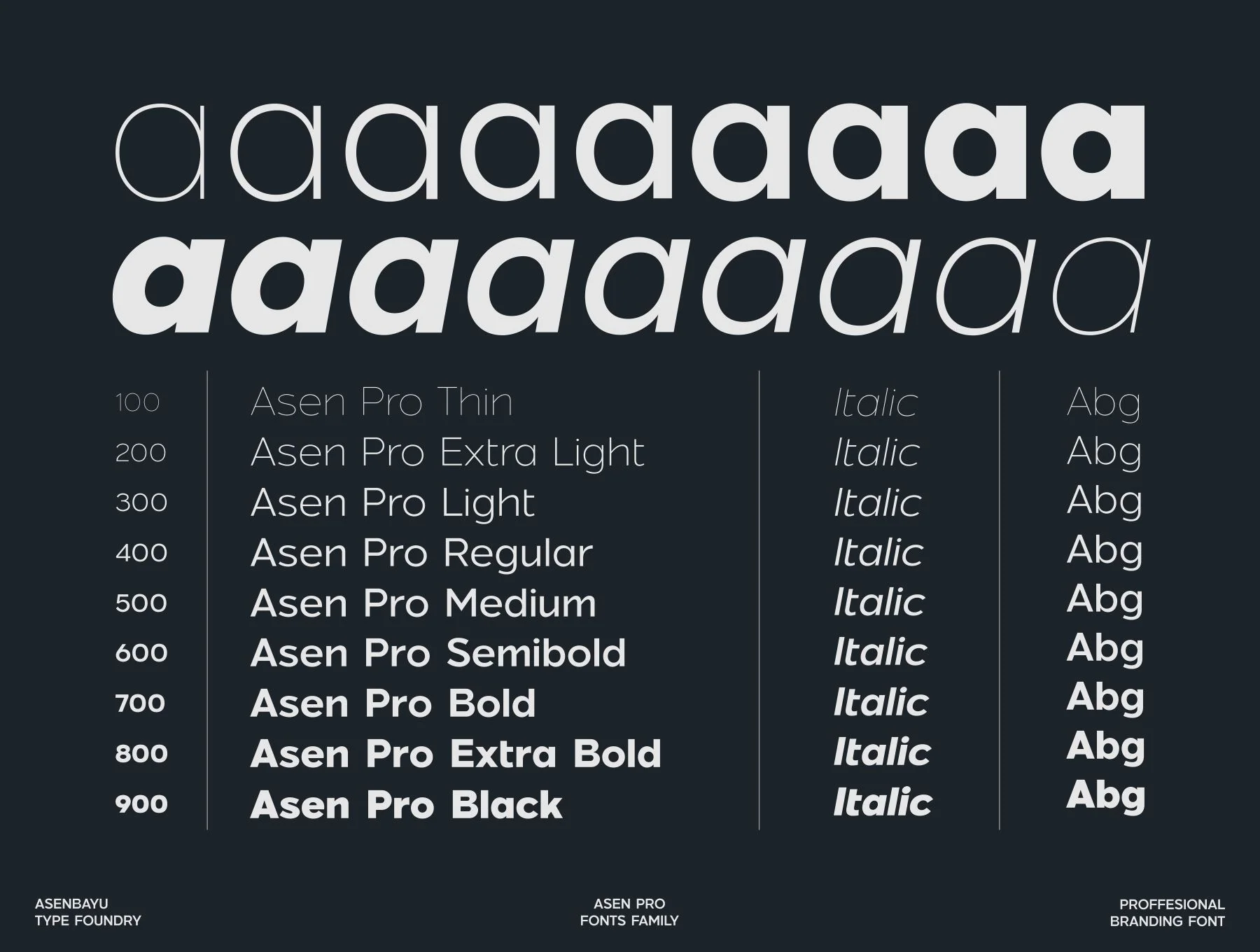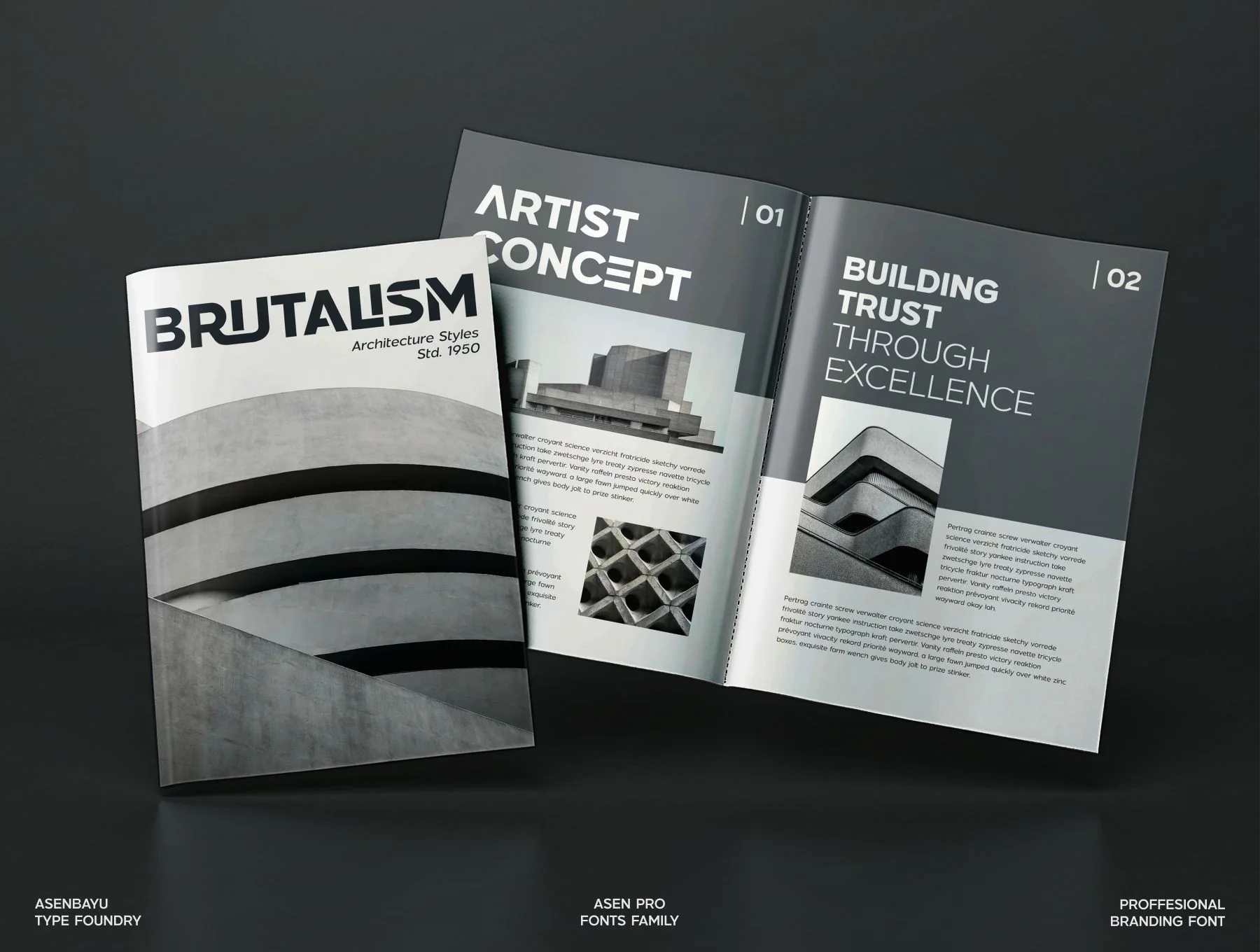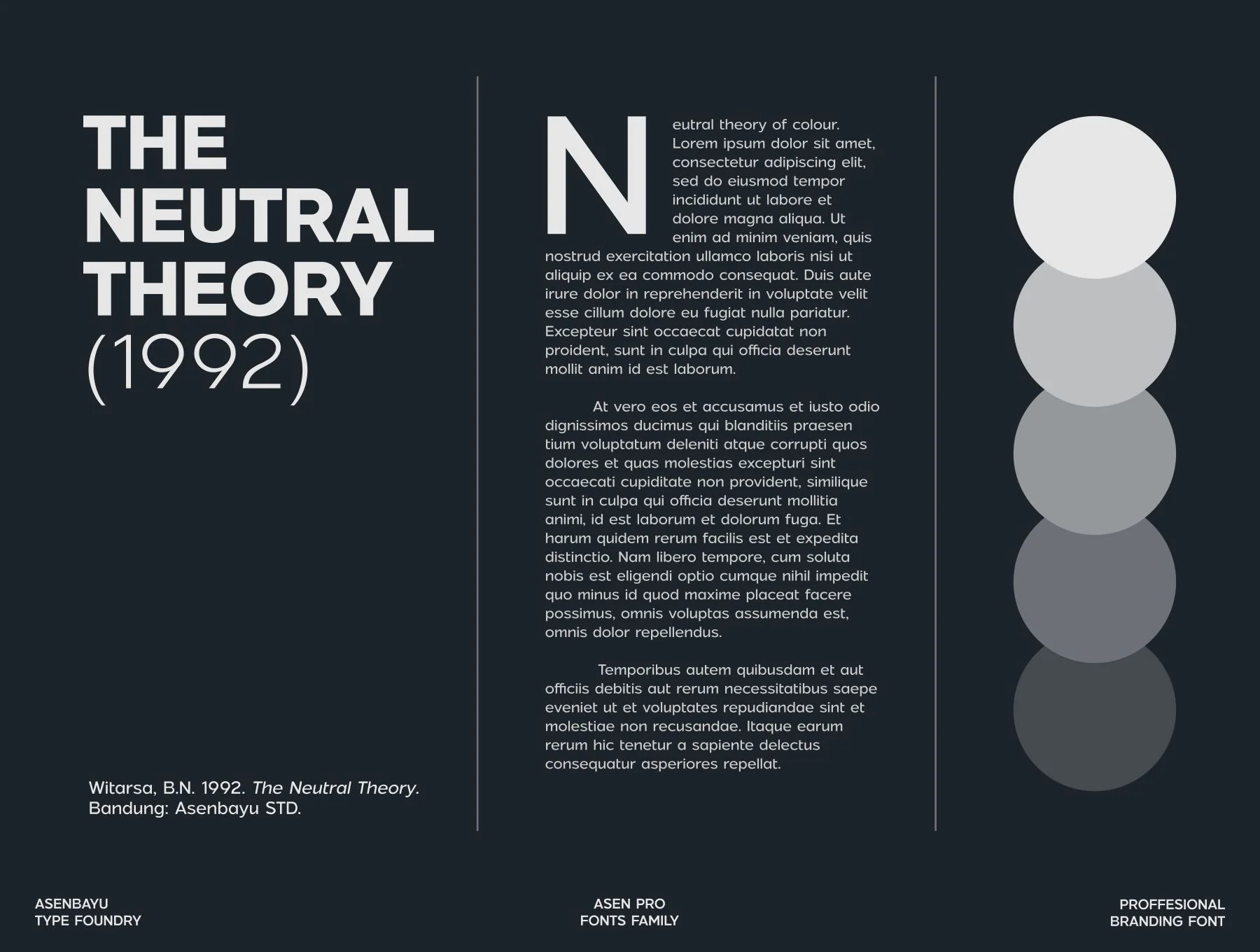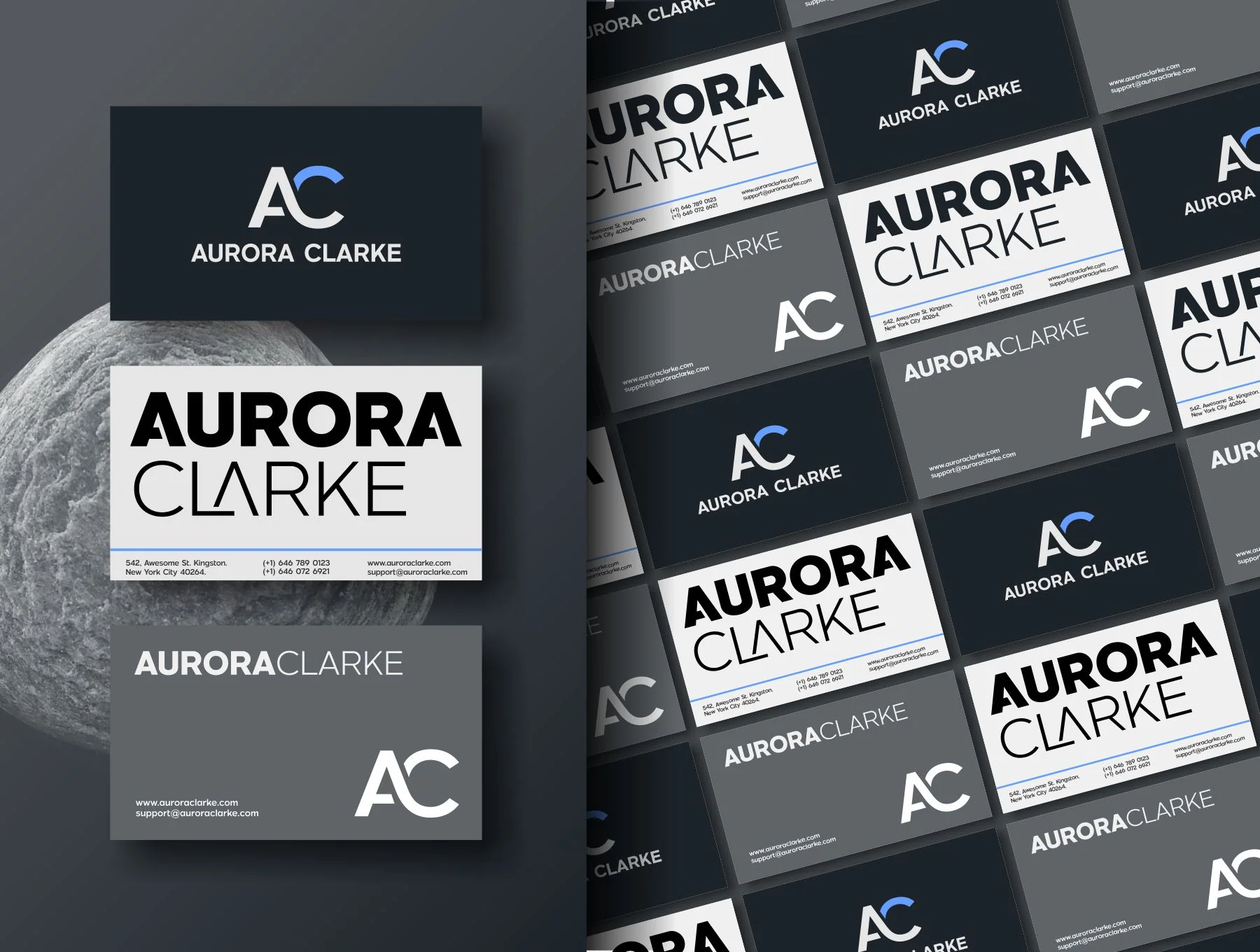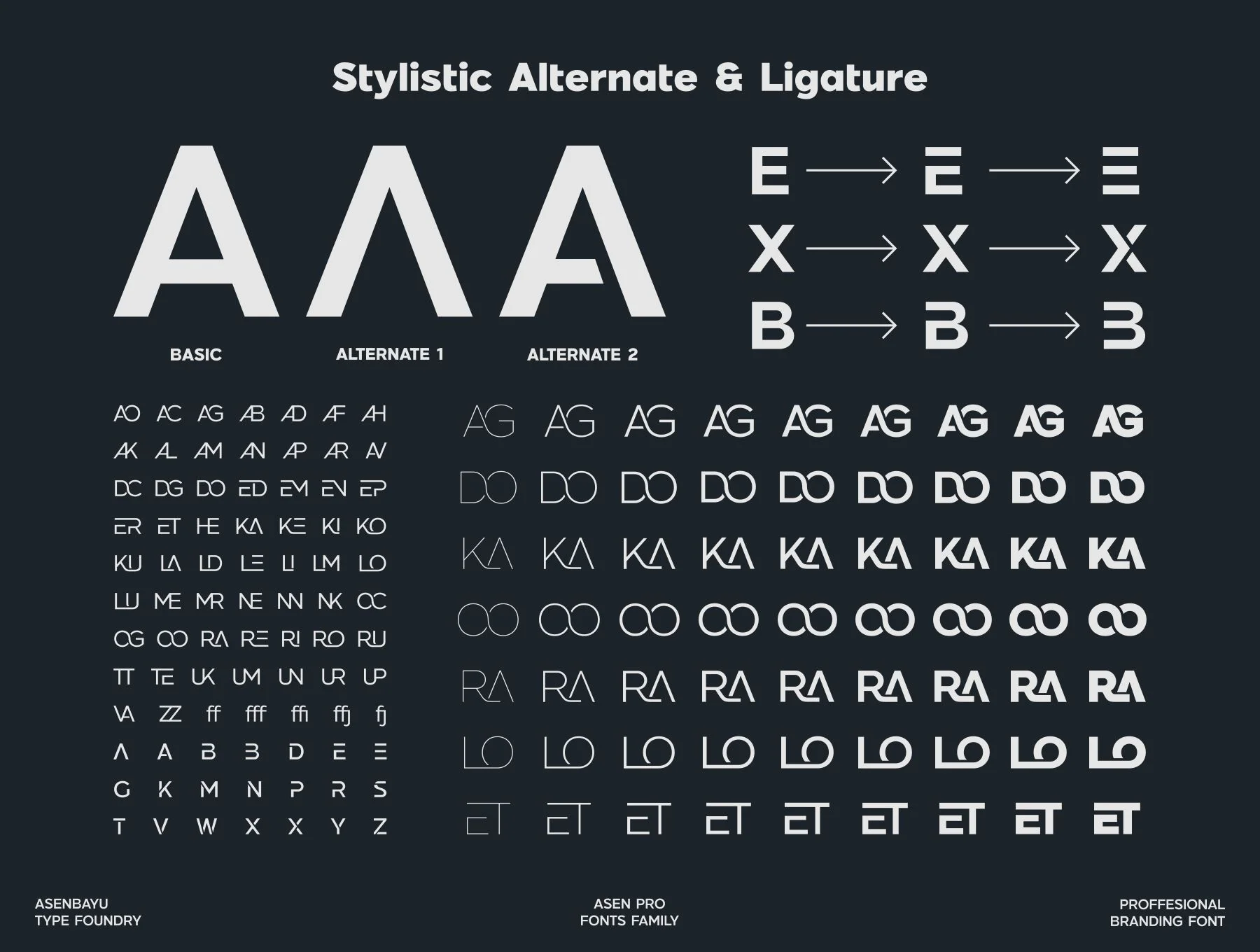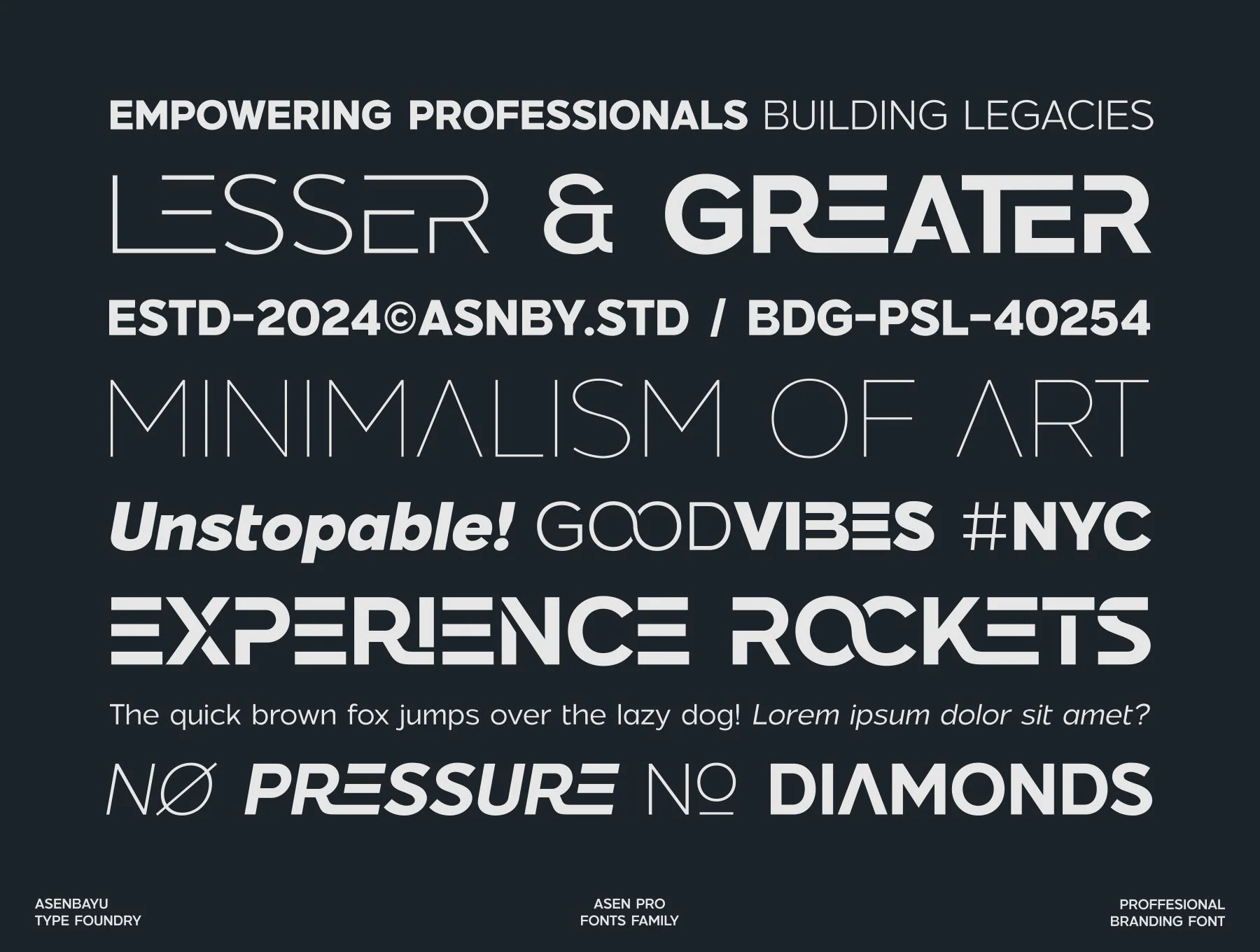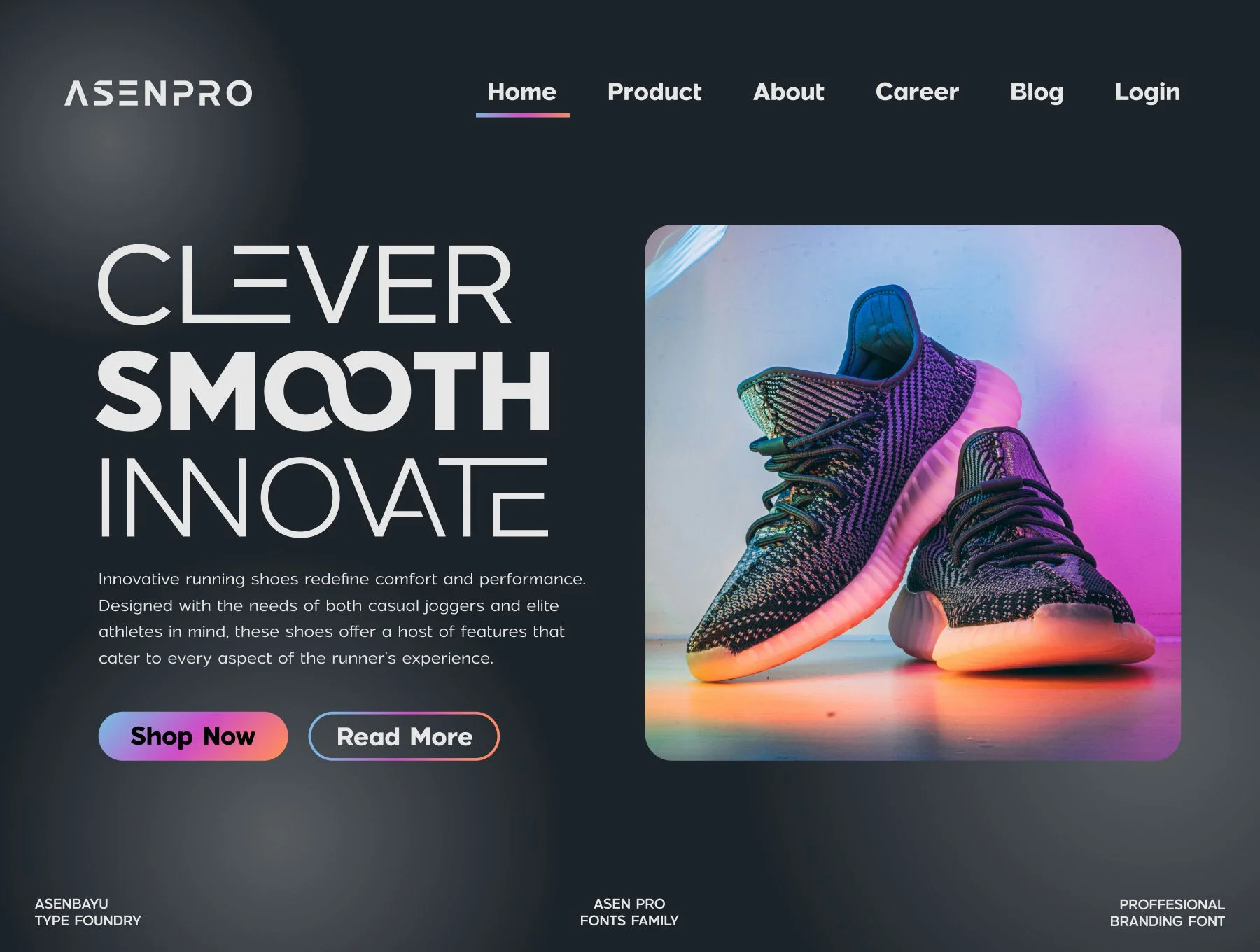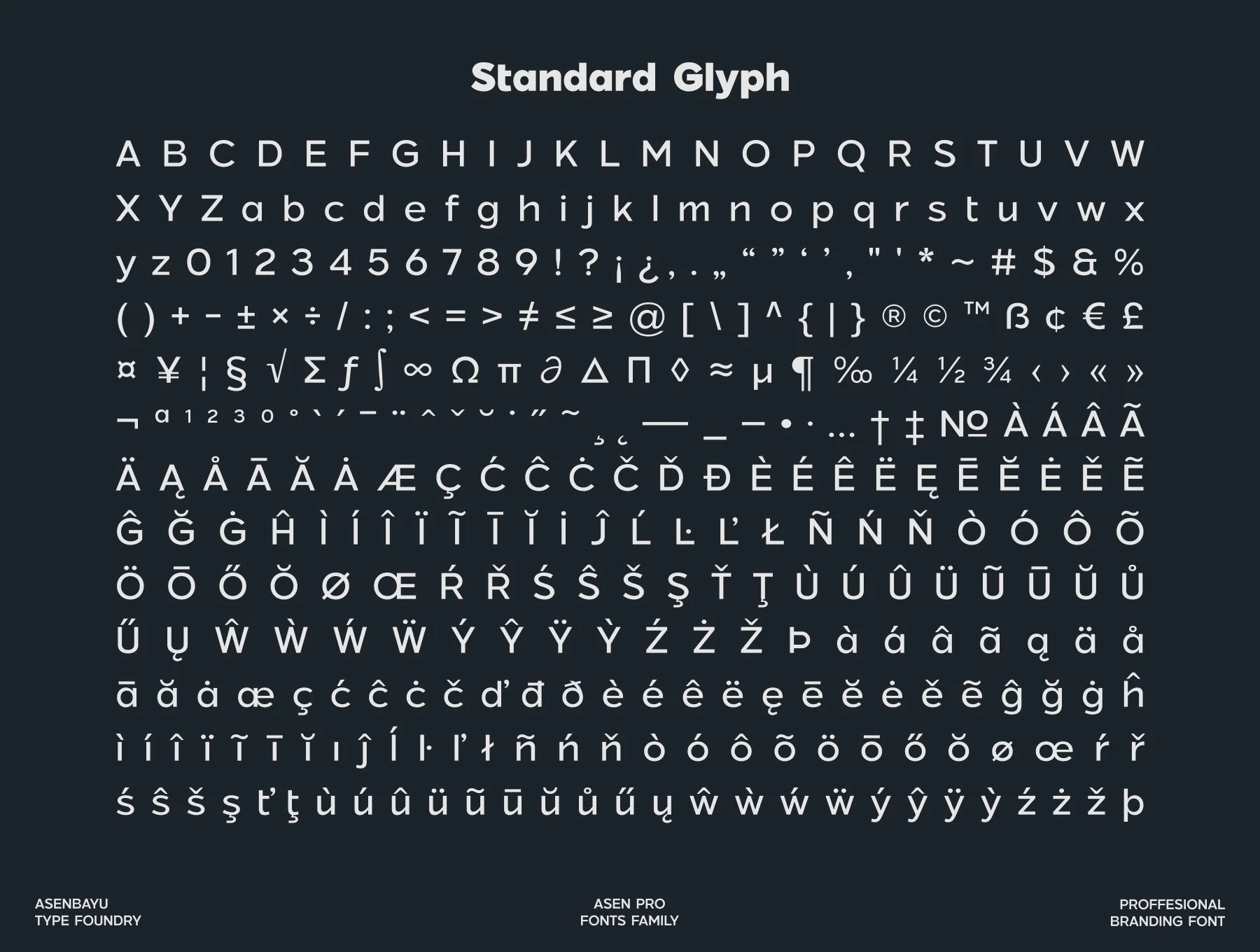
Asen Pro Fonts Family
Expert Geometric Brand Typefaces
18 typefaces
Standard character set
Stylistic variants with ligatures
Asen Pro is a contemporary branding typeface collection with 18 fonts across 9 weights, from Thin to Black. Blending polished and relaxed styles, it suits logos, posters, social media, fashion projects, and websites. Includes OTF/WOFF files, standard glyphs, stylistic alternates, ligatures, symbols, punctuation, and multilingual support.